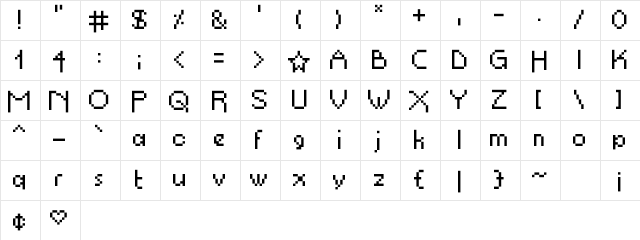
PropelRepel Medium Free Font
PropelRepel Medium
Design Context for PropelRepel
PropelRepel is a composed and adaptable typeface that performs quietly and consistently across a wide range of design contexts.
Pro Tip: Use PropelRepel in both headline and body roles to test its range before committing to a single application.